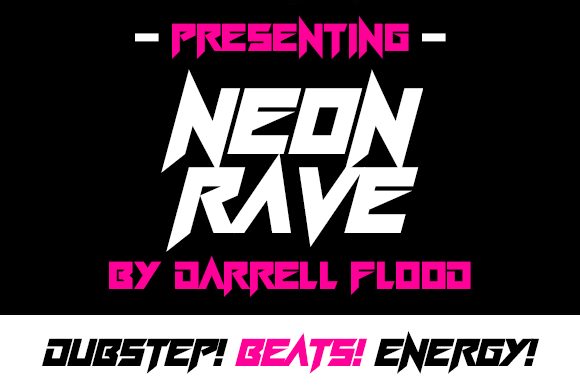
Neon Rave Font for Modern Business Branding
Neon Rave for High-Tech Presentations and Startup Branding
Neon Rave, a stylish angular font in a super sharp angled style, brings a modern edge to high-tech presentations and startup branding. As a small business owner, I’ve found that using Display fonts like Neon Rave helps my brand stand out in digital slides, pitch decks, and investor materials. The clean lines and geometric shapes of this Font make it ideal for conveying innovation and professionalism.
Whether you're presenting to clients or showcasing your product at a tech conference, Neon Rave adds a sleek, contemporary feel that aligns with the vibe of high-tech environments. It's perfect for creating slide headers, call-out boxes, and title slides that grab attention without overwhelming the viewer.
Neon Rave for Sci-Fi-Themed Product Packaging and Labels
Neon Rave is more than just a Display Font—it’s a visual statement that can transform your product packaging into something truly memorable. I've used it on handmade candle labels and beauty product packaging with a sci-fi theme, and the results have been impressive. The angular design gives off an air of futuristic energy that appeals to niche audiences who love bold, unconventional aesthetics.
For businesses targeting fans of science fiction or technology, Neon Rave works wonders on product labels, stickers, and promotional materials. It adds a sense of intrigue and modernity that makes your products stand out on shelves or in online shops. Pair it with a clean sans serif font for body text to maintain readability while keeping the overall look cohesive.
Neon Rave for Music Gigs and Event Branding
If your business is involved in music events, live performances, or anything related to modern music gigs, Neon Rave is a must-have Font. I've used it for event posters, flyers, and social media graphics for local music festivals, and it always draws attention. The sharp angles and dynamic shape of this Display Font mirror the energy of live performances and electronic music scenes.
Using Neon Rave for your event branding ensures consistency across all promotional materials—from Instagram posts to printed flyers. It helps create a unified visual identity that resonates with your audience and reinforces your brand’s personality. Just be sure to test it on different platforms to ensure it looks good on both mobile screens and printed materials.
Neon Rave for Social Media Graphics and Digital Ads
Neon Rave shines in digital spaces, especially when used for social media graphics and digital ads. As someone who runs an online shop, I rely on strong typography to make my content visually engaging. This Display Font adds a modern flair to Instagram posts, Pinterest pins, and Facebook ads, helping my brand cut through the noise.
When designing visuals for social media, use Neon Rave as a headline or accent font to draw the eye. It pairs well with minimalist layouts and complements vibrant colors. Just keep in mind that readability is key—make sure the font size and spacing are appropriate for smaller screens and thumbnails.
Neon Rave for Cafe Menus and Food Packaging
I recently redesigned my café menu using Neon Rave, and it transformed the look of our offerings. The font’s sharp edges and modern style gave our menu a fresh, contemporary feel that matched our brand’s vibe. It also worked well on food packaging, making our products instantly recognizable to customers.
For cafes, restaurants, or any food-related business, Neon Rave can add a unique touch to menus, drink labels, and promotional materials. It’s best used sparingly—maybe as a header or for special items—to avoid overwhelming the reader. Always pair it with a legible sans serif font for body text to maintain clarity and professionalism.
Neon Rave for Boutique Logos and Brand Identity
Neon Rave is an excellent choice for boutique logos and brand identity projects. Its bold, angular design creates a strong visual impact that makes your brand more memorable. I've used it for a boutique logo that needed to convey both creativity and confidence, and it delivered exactly what I was looking for.
When designing a logo, consider how Neon Rave will appear in different sizes and formats. Test it on business cards, signage, and website headers to ensure it looks good in all contexts. Remember to check commercial font licensing before using it on merchandise or client work to avoid legal issues down the line.
Neon Rave for Web Design and Website Banners
Incorporating Neon Rave into web design can elevate your website’s visual appeal. I’ve used it for website banners, hero sections, and call-to-action buttons, and it always adds a modern, energetic feel. As a Display Font, it’s great for highlighting important messages and drawing attention to key content.
When using Neon Rave on your website, balance is key. Use it as a headline or accent font rather than for large blocks of text. Pair it with a complementary sans serif or serif font for body copy to ensure readability and maintain a professional look.
Use Neon Rave sparingly on these types of materials to keep them from feeling too intense. It works well as a header or signature line, adding a subtle but noticeable detail that reflects your brand’s personality.